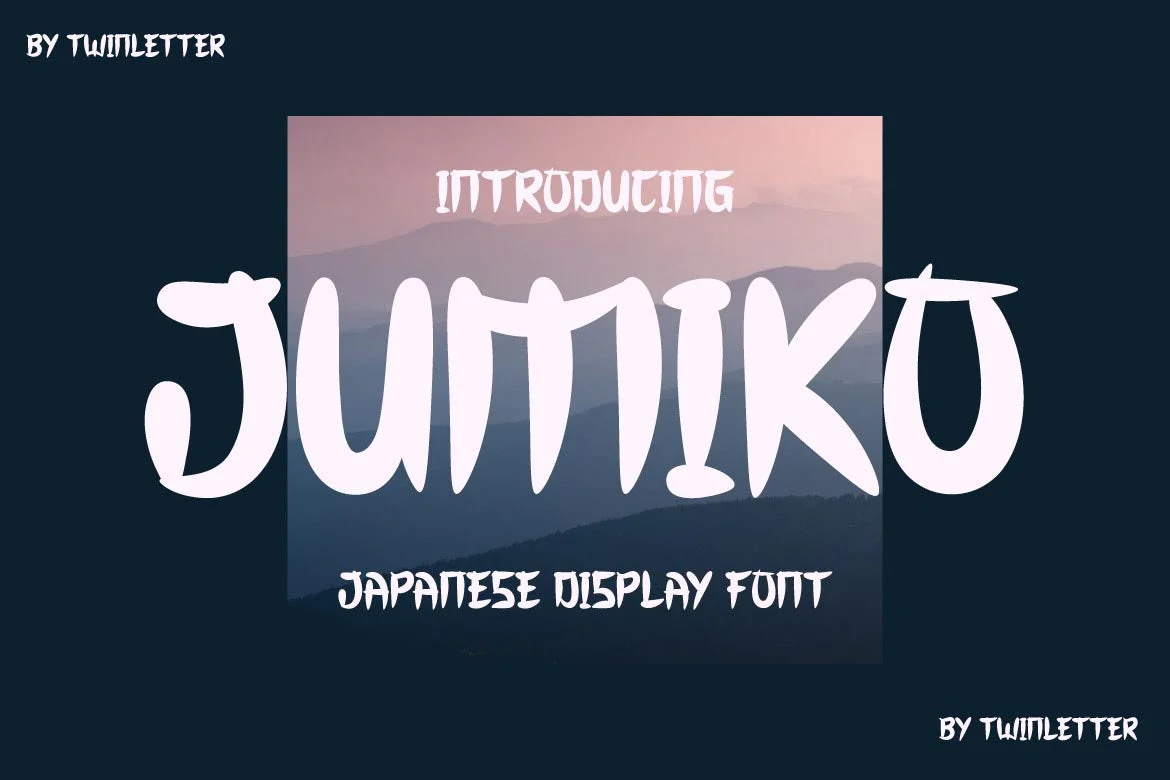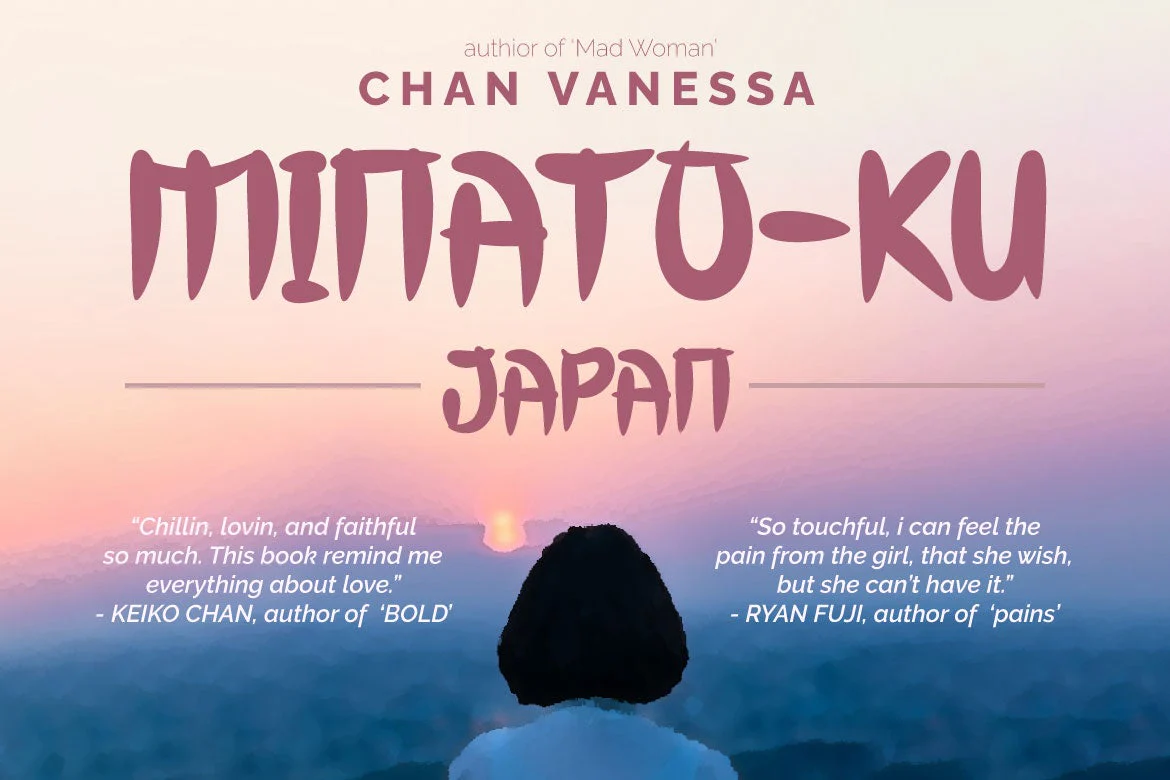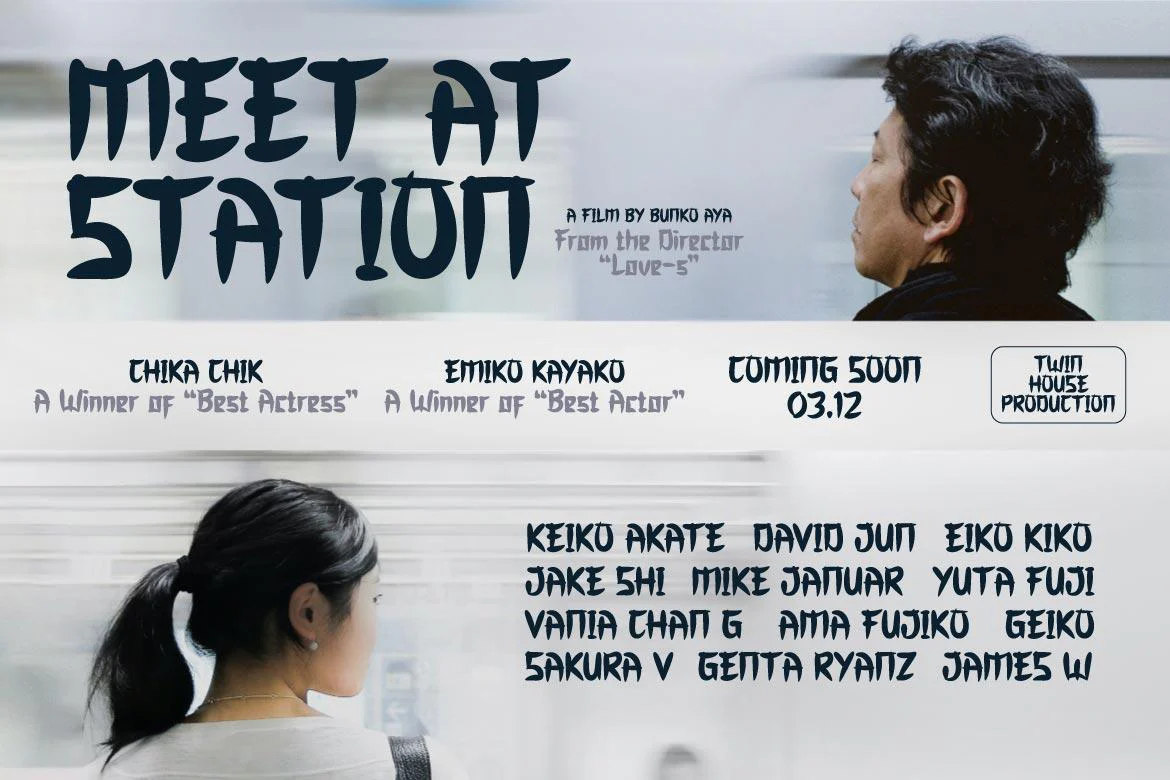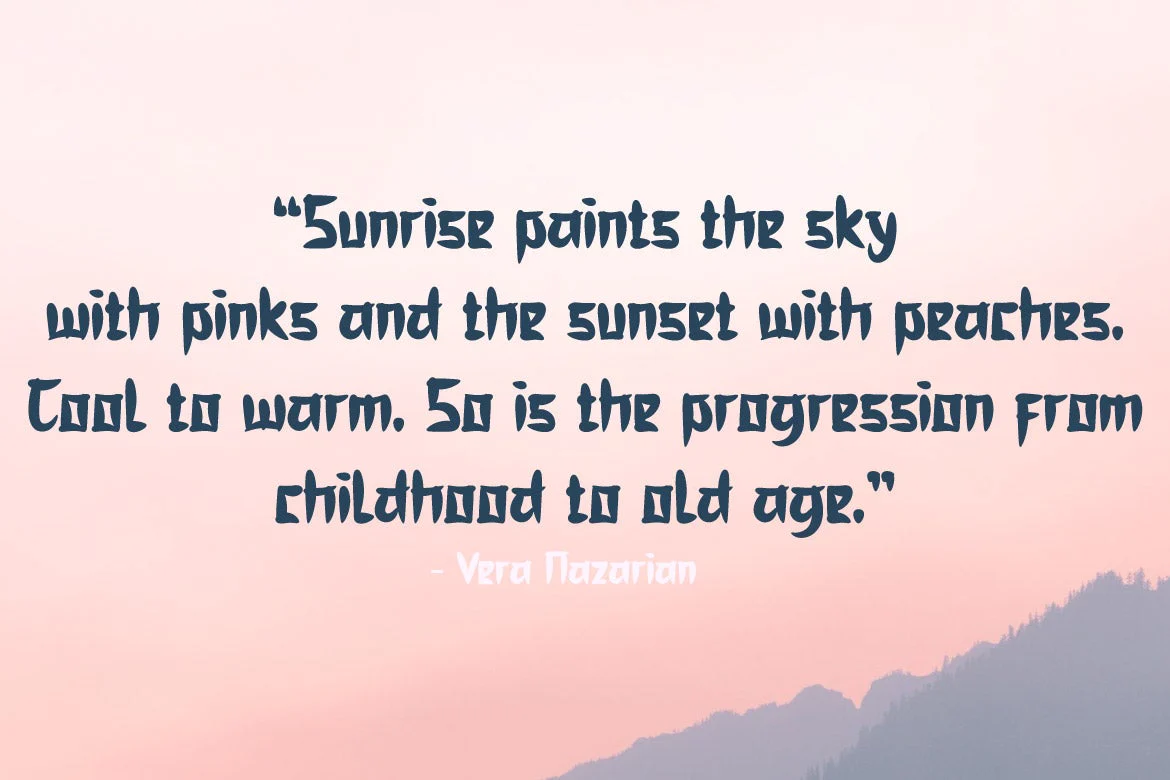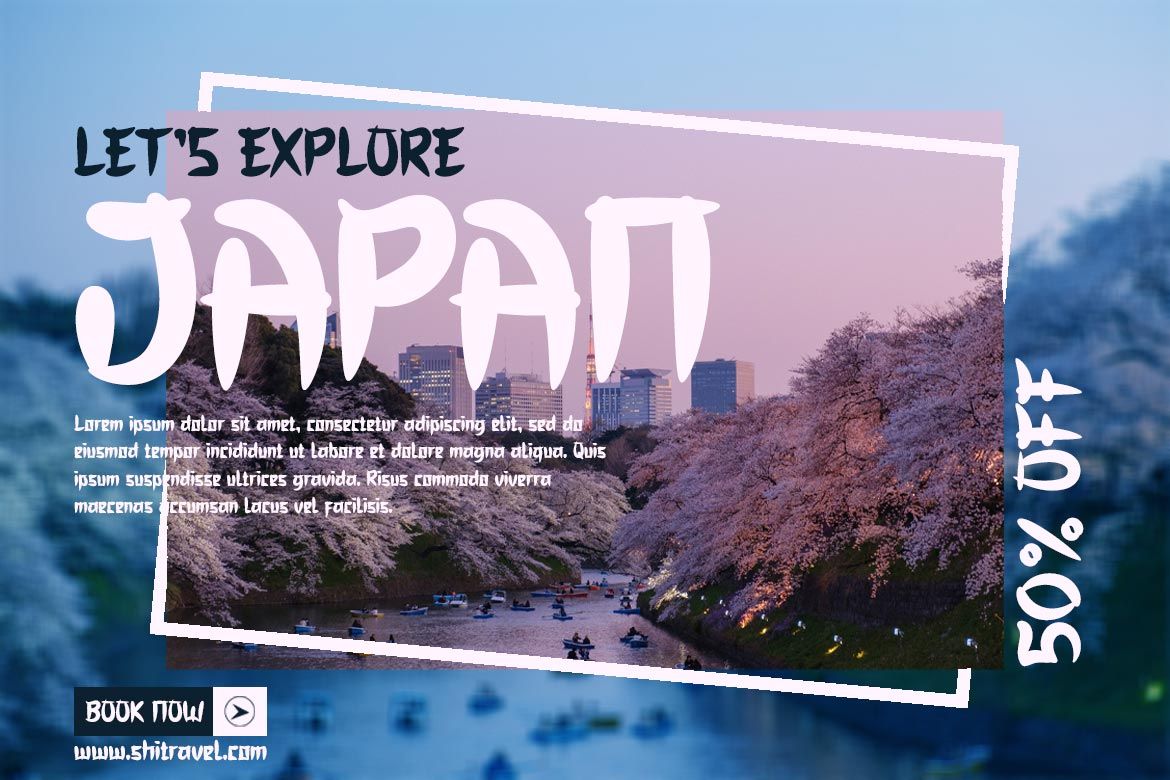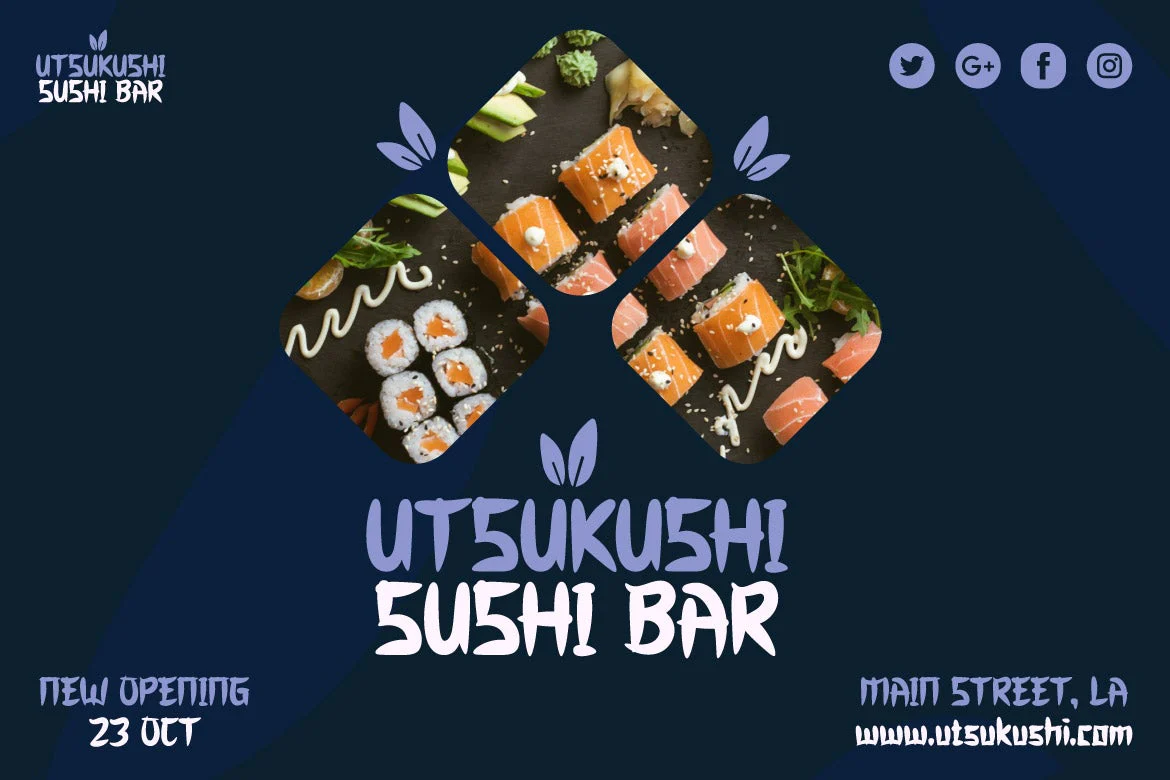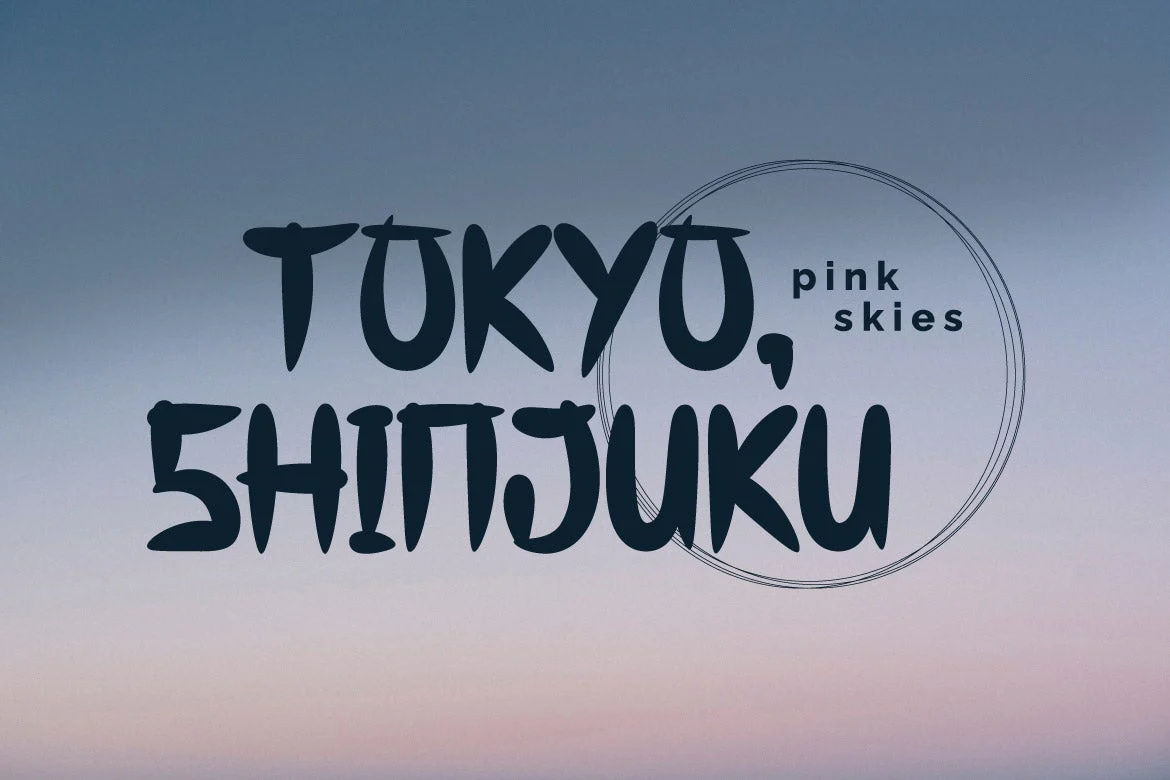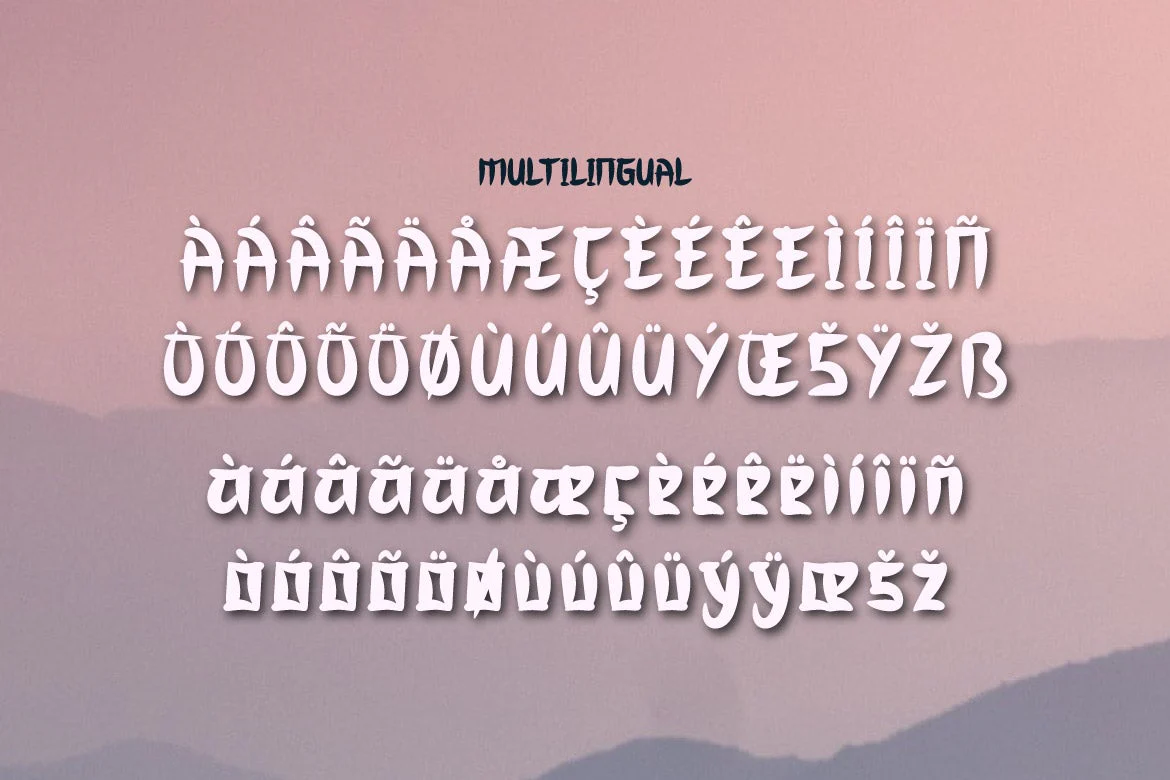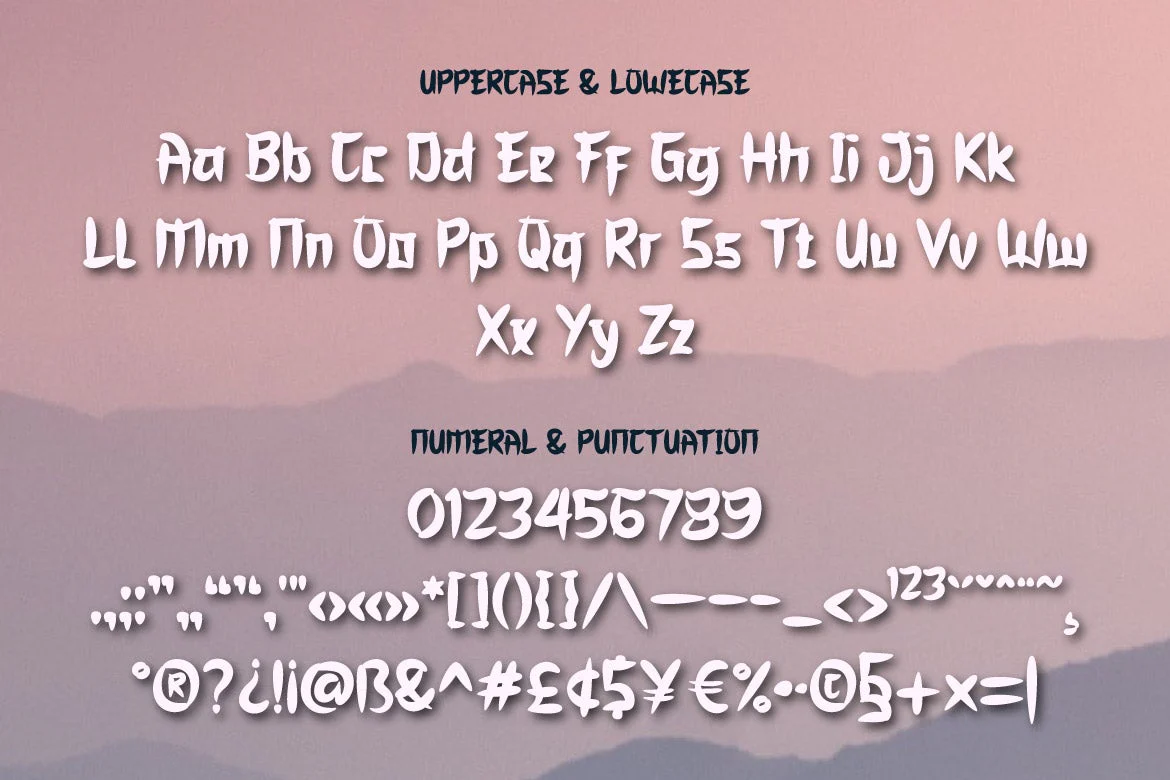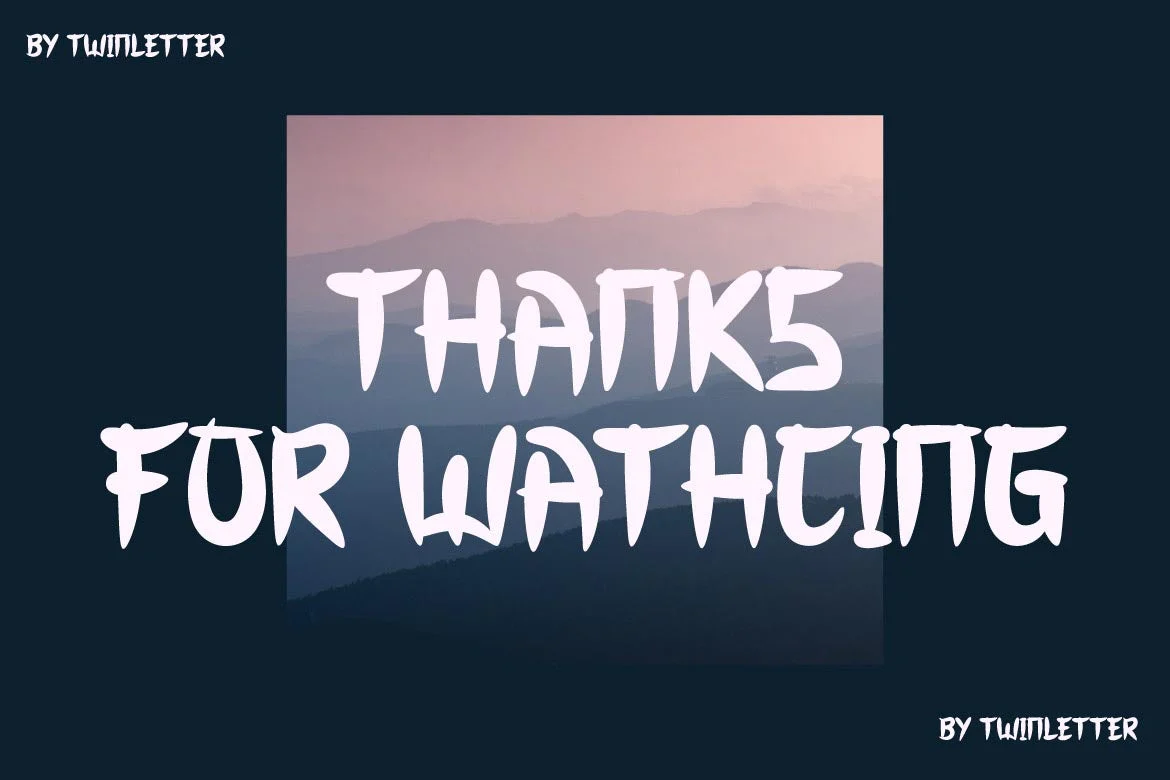
JUMIKO Faux Japanese Font
Jumiko is a display typeface with a Japanese motif and a dramatic hand touch that results in a stunning and futuristic mix of words.
You can simply use this font to make your project unique and memorable, making it stand out and easy to remember for everyone.
Logotypes, food banners, branding, brochure, posters, movie titles, book titles, quotes, and more may all benefit from this font.
Of course, using this font in your various design projects will make them excellent and outstanding; many viewers are drawn to the striking and unusual graphic display.
Jumiko is a display typeface with a Japanese motif and a dramatic hand touch that results in a stunning and futuristic mix of words.
You can simply use this font to make your project unique and memorable, making it stand out and easy to remember for everyone.
Logotypes, food banners, branding, brochure, posters, movie titles, book titles, quotes, and more may all benefit from this font.
Of course, using this font in your various design projects will make them excellent and outstanding; many viewers are drawn to the striking and unusual graphic display.